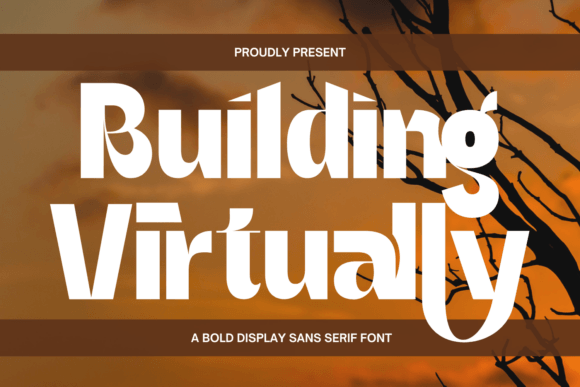
Where Design Meets Elegance
As designers, we’ve all been there – staring at a blank page, trying to bring our vision to life. The cursor blinks, and our minds go blank. But what if I told you that the perfect font could be the spark that sets your creative process ablaze? Enter Building Virtually Font, a modern sans-serif font designed to elevate your designs with its clean lines and balanced proportions.
With its 2 weights, Building Virtually Font is the perfect blend of simplicity and elegance, making it ideal for branding, editorial design, and digital interfaces. Whether you’re working on a high-end fashion editorial or a cutting-edge tech project, this versatile font delivers a professional aesthetic that’s sure to impress. And with its OpenType features, you’ll have access to 100 ligatures, alternate numbers, and more – giving you the tools you need to take your designs to the next level.
Key Features of Building Virtually Font
- Unique Characteristics: Features a unique blend of modern and classic design elements, making it suitable for a wide range of applications, from corporate branding to creative projects.
Building Virtually Font: A Designer’s Review
As a designer, I’m always on the lookout for fonts that can elevate my projects and communicate effectively. Building Virtually Font caught my attention with its unique, futuristic aesthetic, and I was eager to put it to the test.
- The font’s bold, geometric lines and shapes create a striking visual impact, making it perfect for futuristic or sci-fi themed projects.
- Its versatility allows it to be used in a wide range of applications, from headlines to body text.
- The font’s digital feel makes it a great choice for tech-related projects or digital interfaces.
- The font’s complexity can make it challenging to read in certain contexts, particularly in smaller sizes or for extended periods of time.
- The font’s futuristic aesthetic may not be suitable for all projects or audiences, particularly those with more traditional or conservative design preferences.
Overall, Building Virtually Font is a unique and effective choice for designers who want to add a touch of futurism to their projects. While it may have some limitations, its strengths make it a valuable addition to any designer’s toolkit.